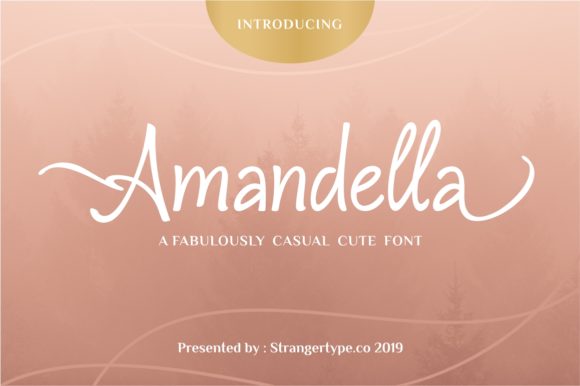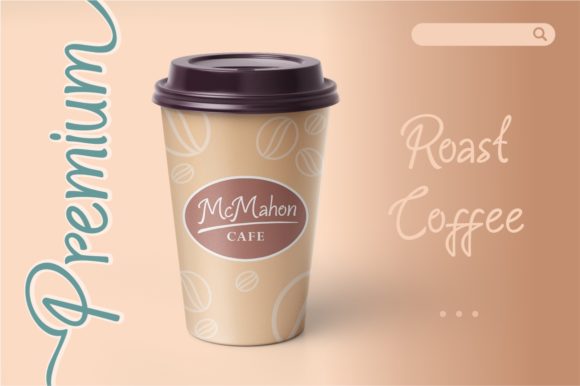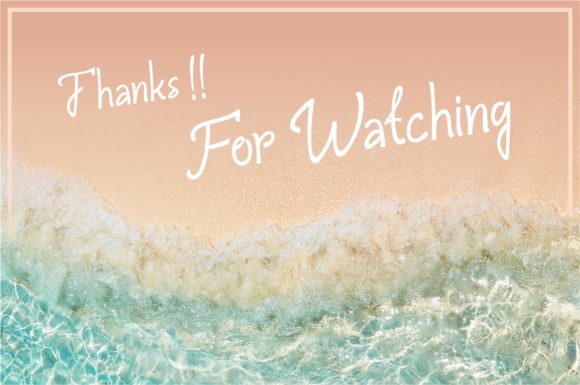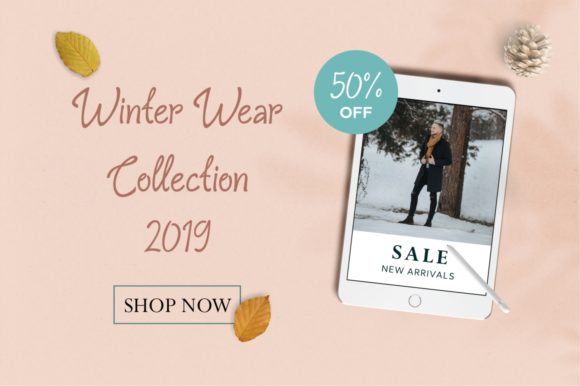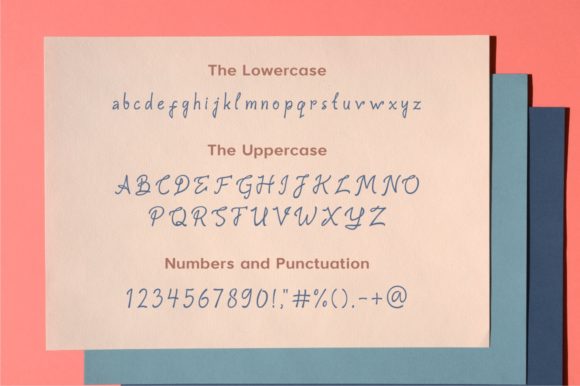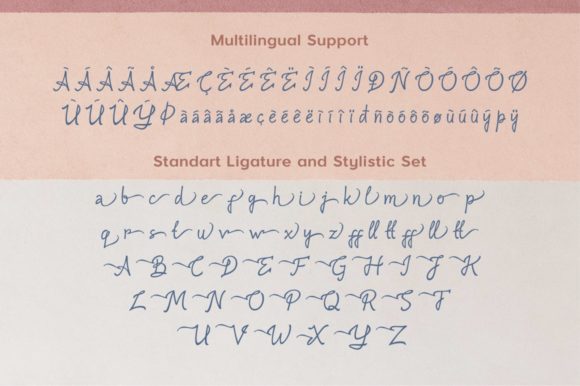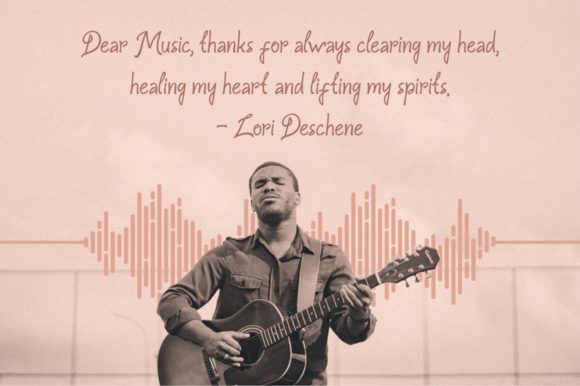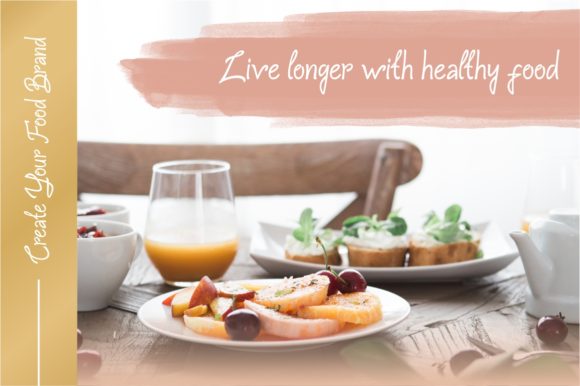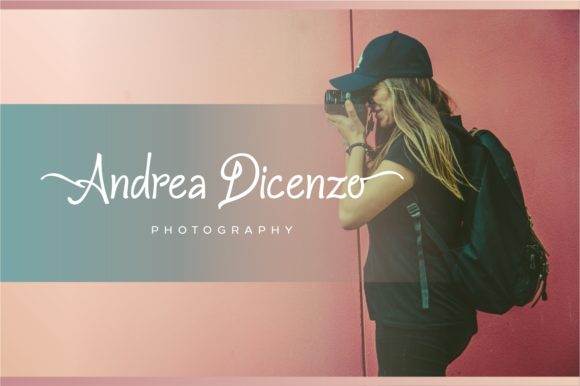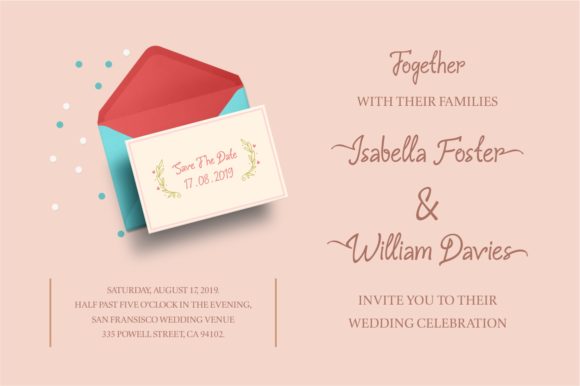
Amandella Font
About Amandella Font
Amandella is a casual cute font with stylish alternates for its uppercase and lowercase elements. It will add a unique decorative feel to any design project.